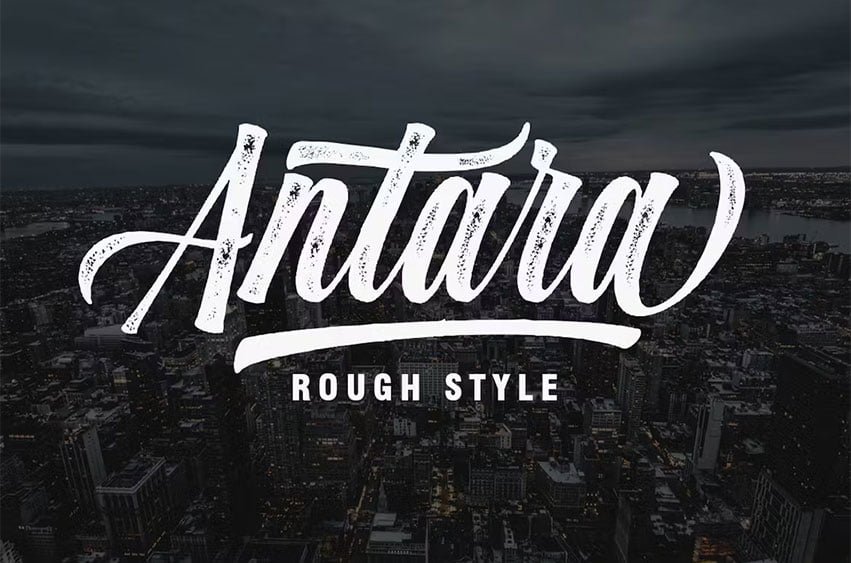
Antara Font is 3 style font, so, the brush script is beautiful and unique, it is a model of modern calligraphy typefaces, in combination with a calligraphy writing style.
The Features of this font are;
- Contextual Alternates
- Standart ligatures
- Stylistic Alternates
- Stylistic set